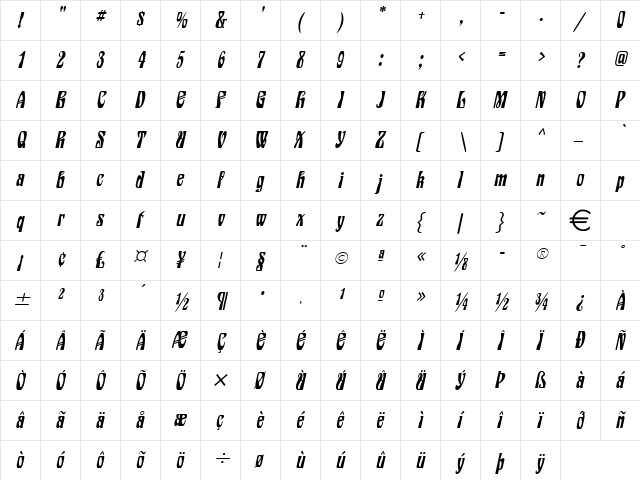
Epic Italic
Design Context for Epic Typeface
Epic is a composed and adaptable typeface that performs quietly and consistently across a wide range of design contexts. The dynamic lean of this cut emphasises speed and emphasis in any layout.
Pro Tip: Use Epic for emphasis, pull quotes, and subheadings where its slanted energy can add rhythm to the layout.